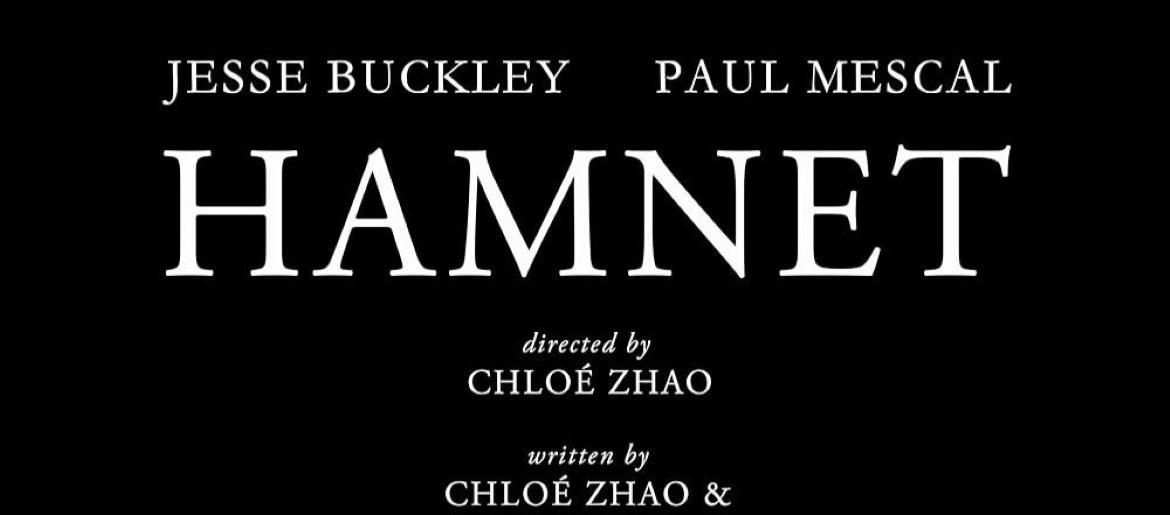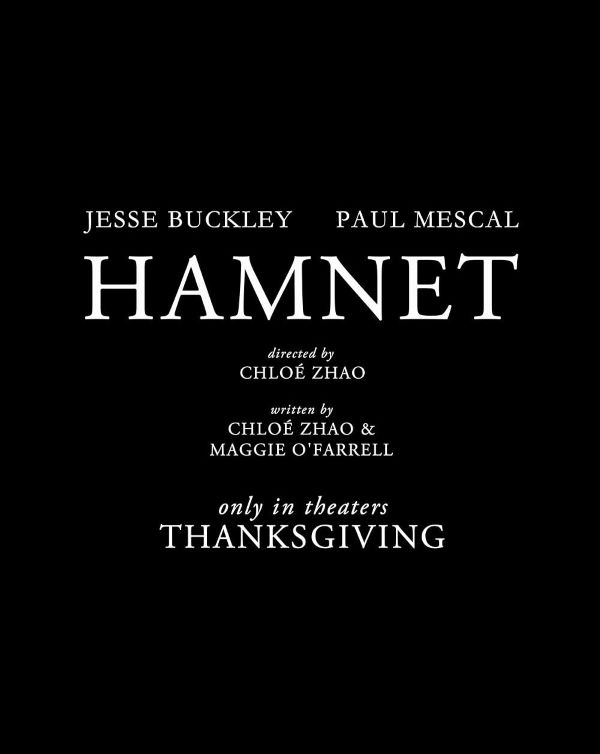
Hamnet Font is a refined and evocative typeface that mirrors the poetic and dramatic spirit of the upcoming film Hamnet. The Hamnet font carries an elegant serif style with timeless character, making it ideal for literary-inspired works, period dramas, or projects that require a sense of history and emotional depth. Its graceful lines and classic look reflect the themes of love, loss, and artistry tied to the story. Designers and fans may be drawn to the Hamnet font for its ability to convey sophistication and a cinematic presence, perfectly aligned with the tone of the film.
Hamnet Font
About Hamnet
Hamnet is an upcoming historical drama film set to release on December 12, 2025. Based on Maggie O’Farrell’s award-winning novel, the movie explores the life and death of William Shakespeare’s son, Hamnet, and the emotional impact it had on the playwright. The film has been highly anticipated for its rich storytelling and moving performances.